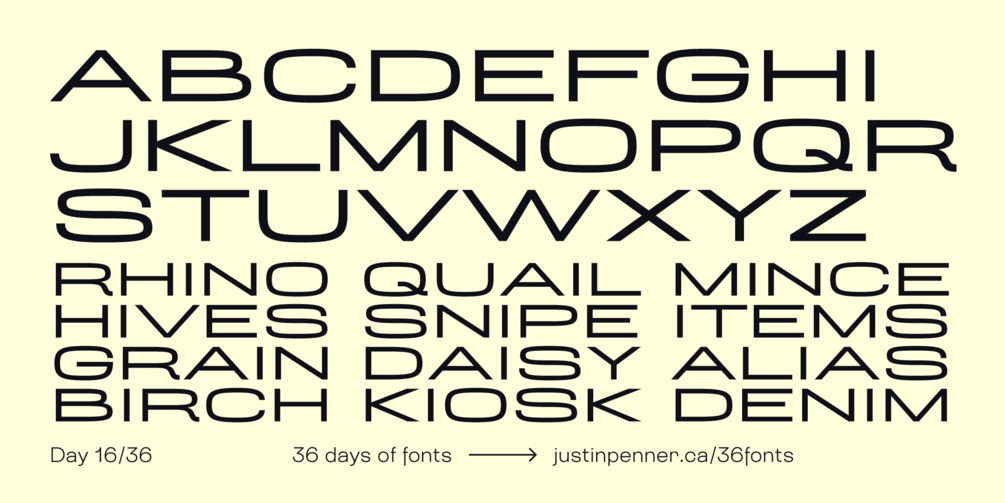
36 Days of Fonts: Day 16
Grammastile
In keeping with my science fiction type obsession, I wanted to do a take on the biggest star in sci-fi typography, Eurostile. Without looking at the original for reference, this is how I imagined it, with a bit of my own personality added.